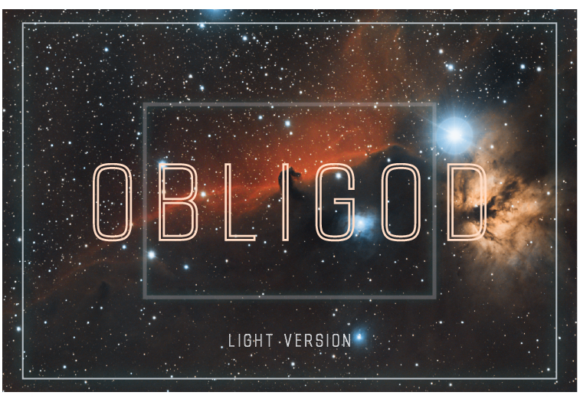
HomeSans Serif FontsObligod Outline Light Font Sans Serif Fonts Obligod Outline Light Font FacebookXPinterestWhatsApp Obligod Outline Light Font 1 of 2 About Obligod Outline Light Font Obligod Outline is a distinct, elegant sans serif font that blends traditional influences into a contemporary aesthetic. It will look particularly adept when used in logos, branding, packaging design, and much more. DOWNLOAD NOW People also explored William Font Ullarf font Blasticia Font Brockheart Font Amstrong Falling Lemon Font HK Slab Font Masato Family Font Castile Gogo 320 0 TagsObligod Outline Light Font Previous articleObligod Outline Regular FontNext articleObligod Outline Extra Light Font LEAVE A REPLY Cancel reply Comment: Please enter your comment! Name:* Please enter your name here Email:* You have entered an incorrect email address! Please enter your email address here Website: Save my name, email, and website in this browser for the next time I comment. Personal Use Free Mounets Personal Use Free Read more about this font The Quick Personal Use Free Read more about this font BD RatterBit Personal Use Free Read more about this font Die Nasty Personal Use Free Read more about this font BLOG 5 Fonts That Will Dominate Design Trends in 2026 5 Fonts for 2026 That Will Dominate Design Trends Typography plays a critical role in visual communication, and as we look ahead to 2026, it’s... Top 10 Handwritten Fonts That Elevate Your Designs Best Fonts for T-Shirt Design – Top 2025 Picks Top 7 Google Fonts Alternatives for Faster and Privacy-Friendly Web Design (2025)